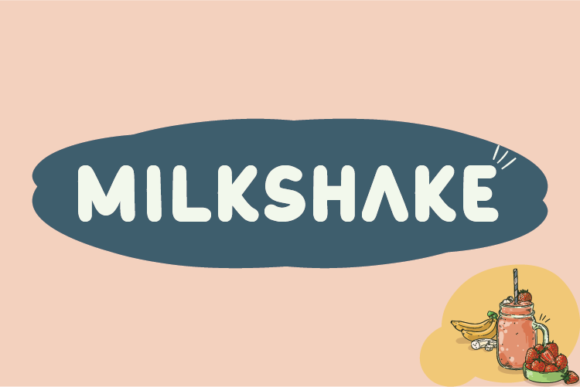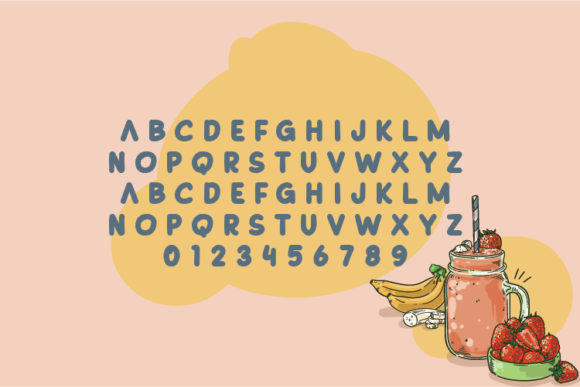
About Milkshake Font
Milkshake is a captivating natural handwritten font distinguished by the preservation of each character’s original indentation without altering a single node. This unique characteristic adds an interesting and unique quality to the font, making it a perfect choice for quotes, notes, tees, and a variety of product designs.
The font’s natural handwritten style imparts an authentic and organic feel, making it an ideal choice for projects that seek to convey a sense of warmth and genuine character. Whether used in quotes for inspiration, notes to add a personal touch, or on t-shirts and product designs, Milkshake brings an unaltered and unique quality to your text.
In quotes and inspirational messages, Milkshake’s natural handwritten appearance adds a touch of warmth and authenticity. The font’s unique design ensures that your words are presented in a way that feels personal and genuine, contributing to a heartfelt expression.
For notes and personal messages, Milkshake enhances the sincerity of your communication. Its untouched indentation design gives the font a handcrafted and individualized look, making your messages feel more intimate and genuine.
On t-shirts and product designs, Milkshake’s natural and unique characteristics create a distinctive visual appeal. The font adds an original touch to your designs, making them stand out with an authentic and unaltered charm.
The versatility of Milkshake extends to various design applications where a natural and handwritten style is desired. Its uniqueness ensures that your text becomes a focal point, adding an interesting and engaging element to your overall design.
In summary, Milkshake is not just a font; it’s a creative tool that brings a natural and unique handwritten style to your projects. Whether used in quotes, notes, tees, or product designs, Milkshake adds an authentic touch, making your creations stand out with a genuine and unaltered charm.